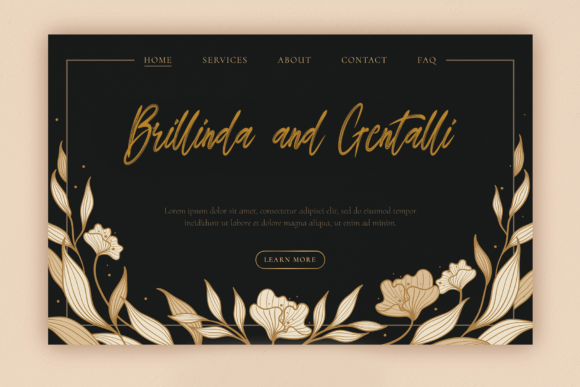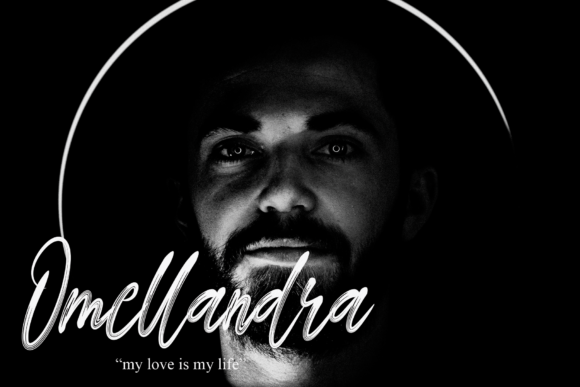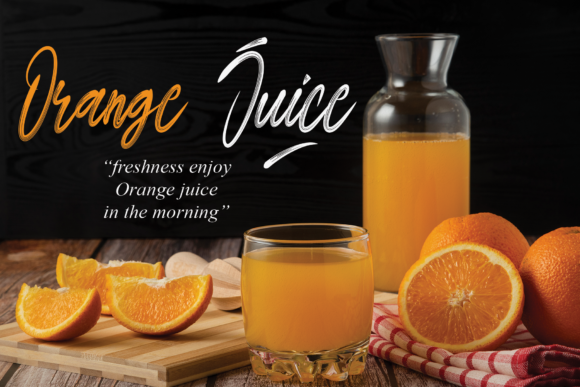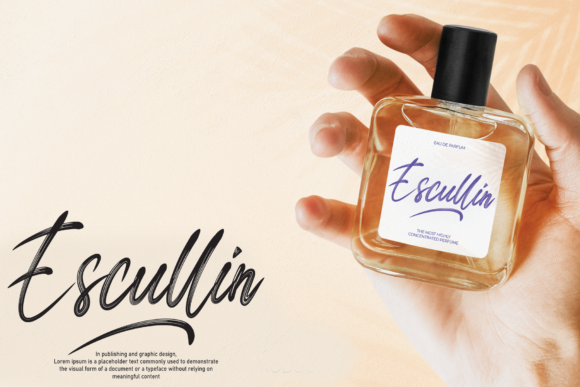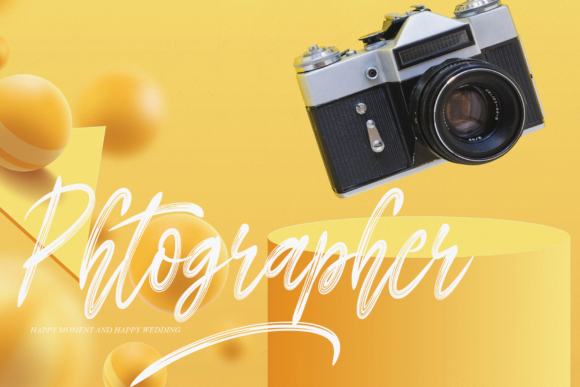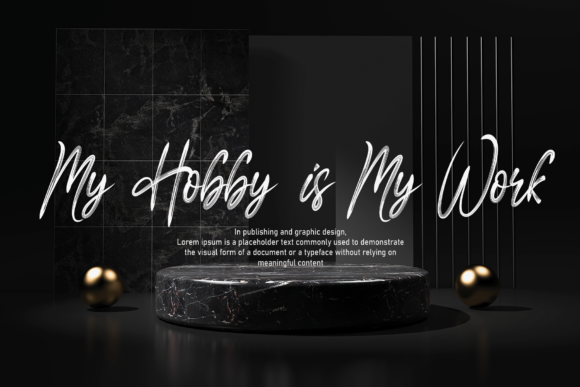
Introducing Black Light Font: Elevate Your Designs with Luxury and Elegance
Are you looking for a font that can add a touch of luxury and sophistication to your design projects? Look no further than the Black Light Font. This beautiful and light handwritten font is designed to make a stunning impact on any design project you wish to create. With its unique feel and elegant appearance, Black Light Font is the perfect choice for designers and crafters who want to take their designs to the next level.
What Makes Black Light Font Special?
Black Light Font is a standout font that offers a range of features that make it perfect for a variety of design projects. Here are just a few of the things that make this font special:
- Unique Feel: Black Light Font has a unique feel that sets it apart from other fonts. Its light and elegant appearance makes it perfect for designs that require a touch of sophistication.
- Stunning Impact: This font is designed to make a stunning impact on any design project. Its beautiful and elegant appearance is sure to grab attention and leave a lasting impression.
- Luxury Spark: Black Light Font is designed to add a luxury spark to any design project. Whether you’re creating a logo, branding materials, or marketing collateral, this font is sure to elevate your design and give it a high-end feel.
- PUA Encoded: Black Light Font is PUA encoded, which means you can access all of the amazing glyphs and ligatures with ease. This makes it easy to use the font in a variety of design projects and ensures that you can get the most out of its features.
Black Light Font is perfect for designers and crafters who want to create beautiful and elegant designs. Whether you’re working on a logo, branding materials, marketing collateral, or any other type of design project, this font is sure to be a great choice. Here are just a few of the ways you can use Black Light Font:
- Logo Design: Black Light Font is perfect for logo design. Its unique feel and elegant appearance make it a great choice for creating a logo that stands out.
- Branding Materials: This font is also great for branding materials such as business cards, letterheads, and brochures.
- Marketing Collateral: Black Light Font is perfect for marketing collateral such as flyers, posters, and social media graphics.
- Crafting Projects: This font is also great for crafting projects such as scrapbooking, card making, and journaling.
Why Choose Black Light Font?
There are many fonts available that offer a similar look and feel to Black Light Font. However, there are several reasons why Black Light Font stands out from the crowd. Here are just a few of the reasons why you should choose Black Light Font:
- High-Quality Design: Black Light Font is designed to the highest standards. Its elegant appearance and unique feel make it a great choice for designers and crafters who want to create high-quality designs.
- Easy to Use: This font is easy to use and comes with a range of features that make it easy to get started. The PUA encoding makes it easy to access all of the glyphs and ligatures, and the font is compatible with a range of design software.
- Versatile: Black Light Font is a versatile font that can be used in a range of design projects. Whether you’re working on a logo, branding materials, or marketing collateral, this font is sure to be a great choice.
In conclusion, Black Light Font is a beautiful and elegant font that is perfect for designers and crafters who want to create high-quality designs. Its unique feel, stunning impact, and luxury spark make it a great choice for a range of design projects. With its PUA encoding and easy-to-use features, Black Light Font is a font that is sure to elevate your designs and give them a high-end feel. So why wait? Download Black Light Font today and start creating stunning designs that will leave a lasting impression.